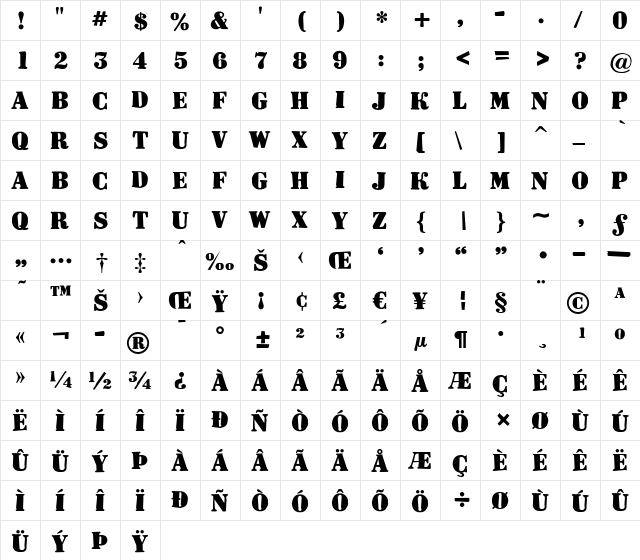
a_DodgerRndDstr Bold
| Designer | W.Chufarofsky & M.Slutsker |
Design Context for a_DodgerRndDstr Typeface
a_DodgerRndDstr offers clean, dependable letterforms without strong stylistic allegiance, making it a practical choice for designers who need flexibility. Its bold stroke weight gives it real presence on the page.